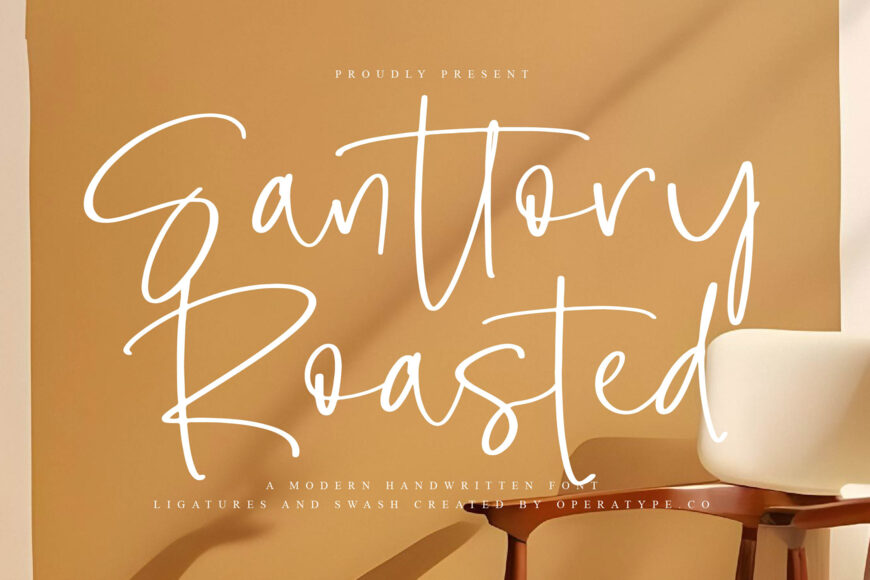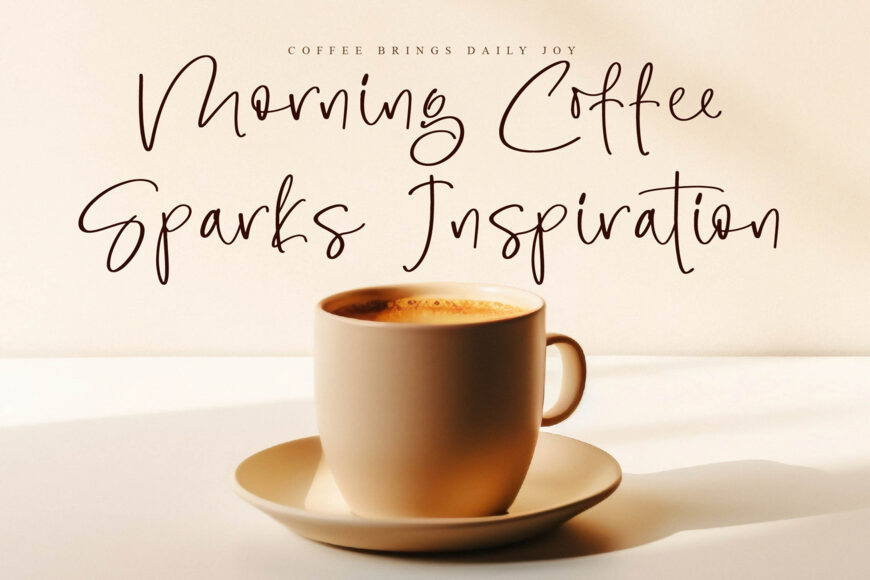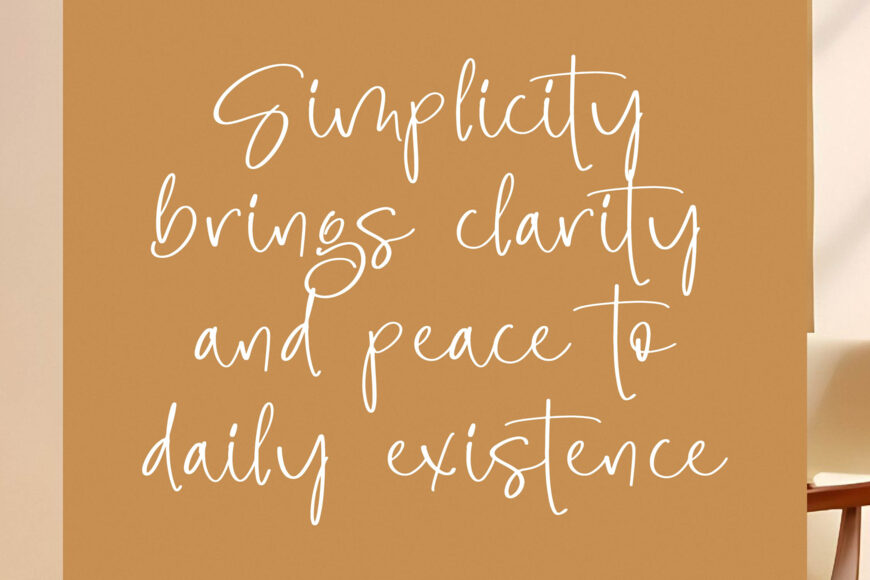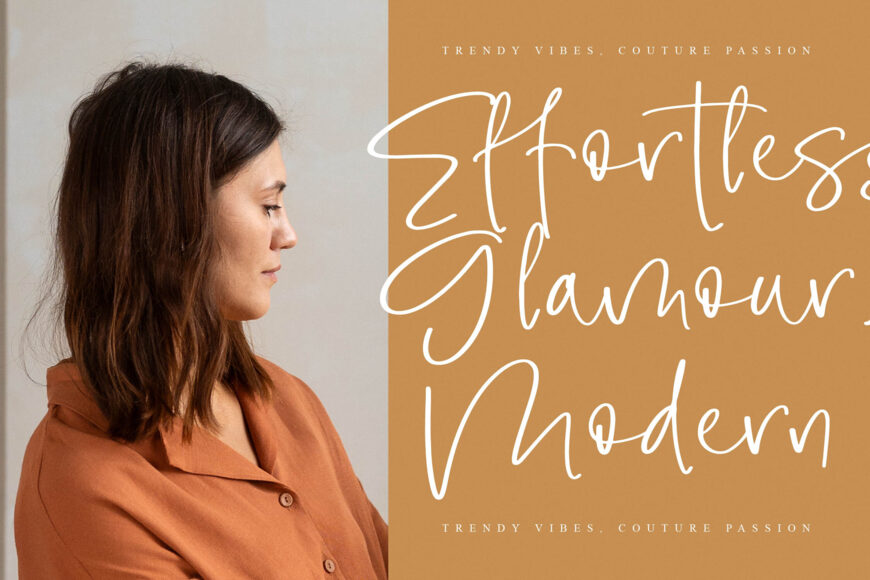
Santtory Roasted is a modern handwritten script font crafted to bring warmth, elegance, and authenticity to your designs. Featuring smooth flowing strokes, graceful swashes, and beautifully balanced letterforms, this typeface delivers a sophisticated handwritten look while maintaining excellent readability.
Inspired by natural signature lettering and contemporary calligraphy aesthetics, Santtory Roasted blends artistic handwritten movement with refined typography details to create a stylish and timeless visual identity.